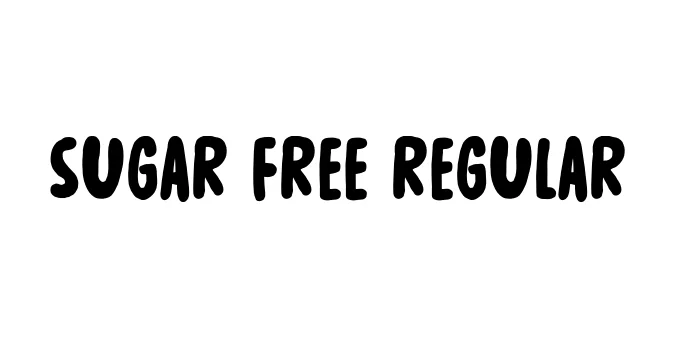
Sugar Free Regular
Designed by Chequered Ink
| Category | Display / Comic |
| Designer | Chequered Ink |
Sugar Free Regular is a playful and bouncy display typeface that captures the whimsical spirit of hand-drawn lettering. Characterized by its irregular baselines and rounded terminals, the font exudes a friendly and approachable energy. It was designed to provide a "sweet" visual aesthetic without the weight of formal typography, making it a favorite for youth-oriented branding and casual creative projects.
The font's anatomy features thick, consistent strokes that ensure legibility even at larger sizes, though it truly shines in headline applications. This typeface often incorporates subtle imperfections that mimic ink flow, adding a sense of organic authenticity to digital designs. Whether used for festive invitations or energetic marketing campaigns, this typeface remains a versatile choice for designers looking to inject fun into their work.
Sugar Free Regular Best Uses
Perfect for fun and quirky brand identities targeting younger audiences.
Adds a personal, hand-made touch to invitations and celebratory cards.
Great for eye-catching Instagram graphics and YouTube thumbnails.
Ideal for graphic t-shirts and merchandise for children.
Excellent for snacks and toy packaging that requires a friendly look.